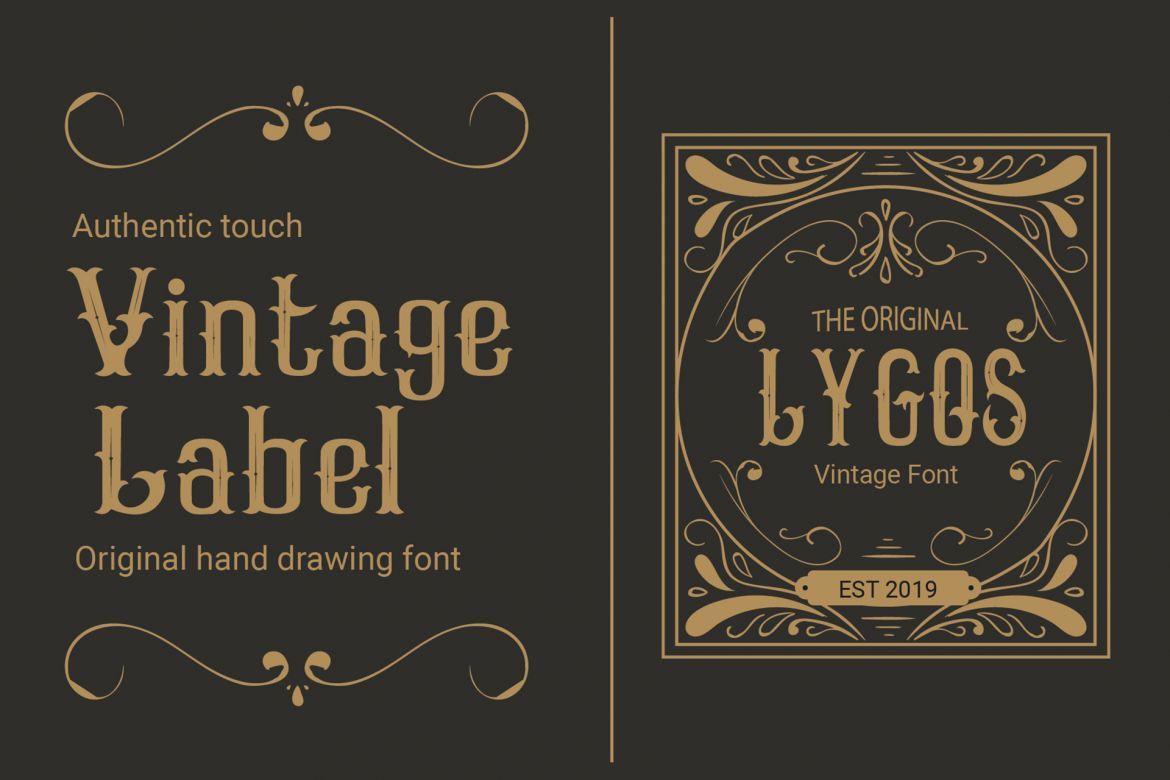
Waltair Decorative Font
Hello there, here is the new vintage font. This stuff is perfect for you to use it on your design logo, banner, poster, or even a signature design. This is an original hand writing font, perfect for give your design an authentic touch.
• great vintage style
• original hand drawn font
• perfect for logo design and headline